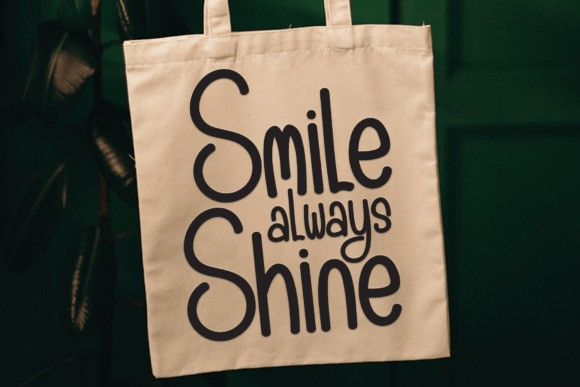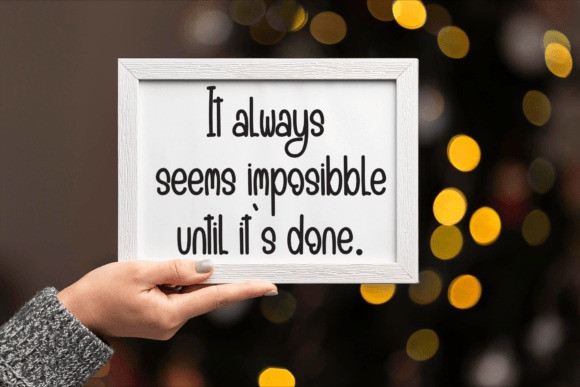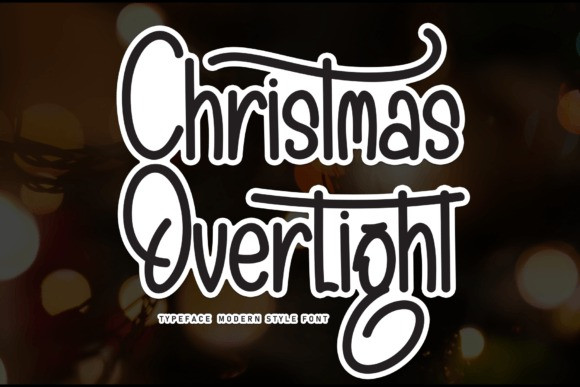
Christmas Overlight Font
Christmas Overlight Font is a whimsical handwritten font that captures the festive spirit with a playful twist. Its joyful strokes and charming curves bring a touch of holiday magic to your projects, making it perfect for spreading cheer in your festive designs. Let the letters dance across the page and infuse your creations with the warmth and merriment of the season!